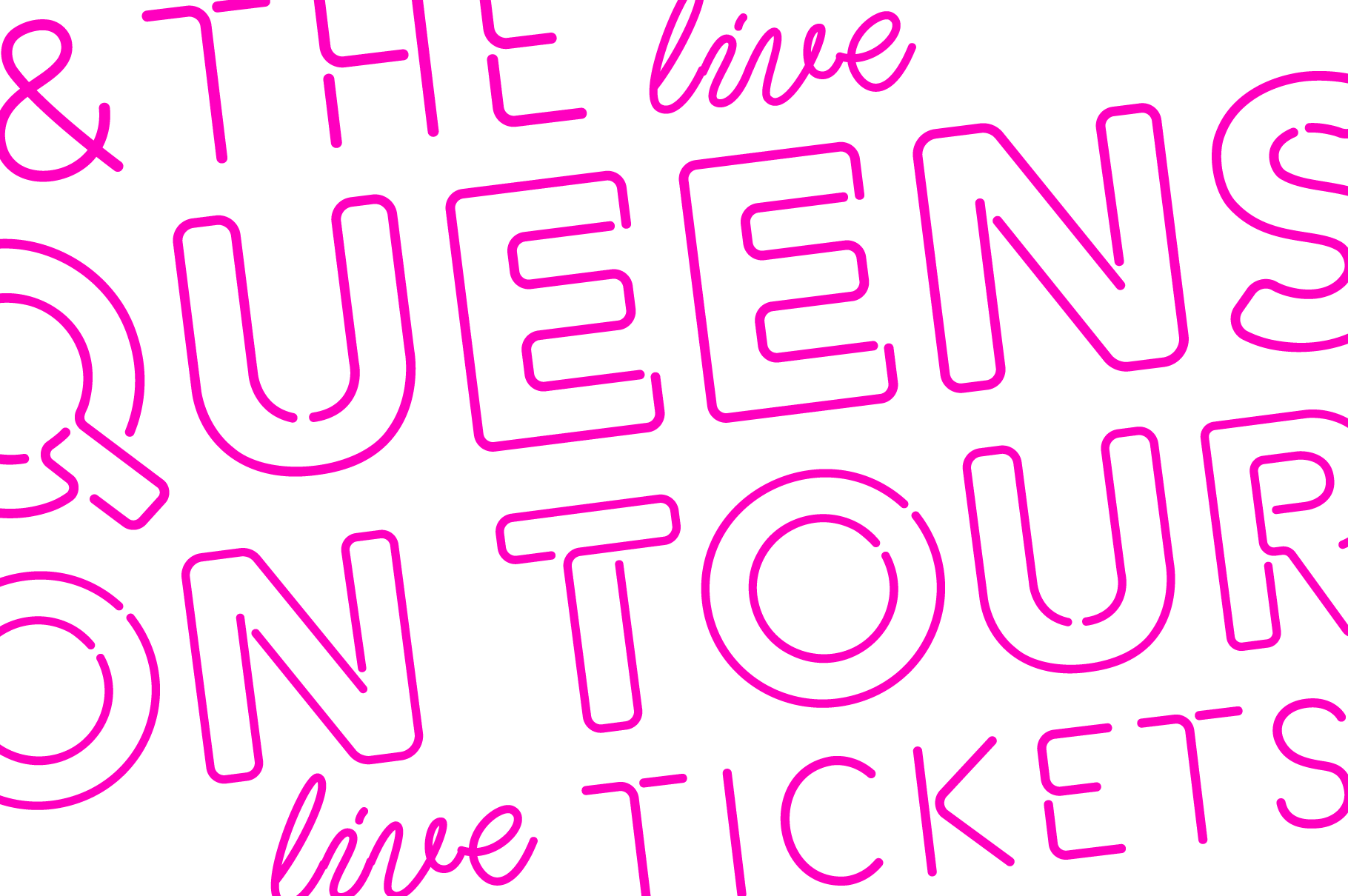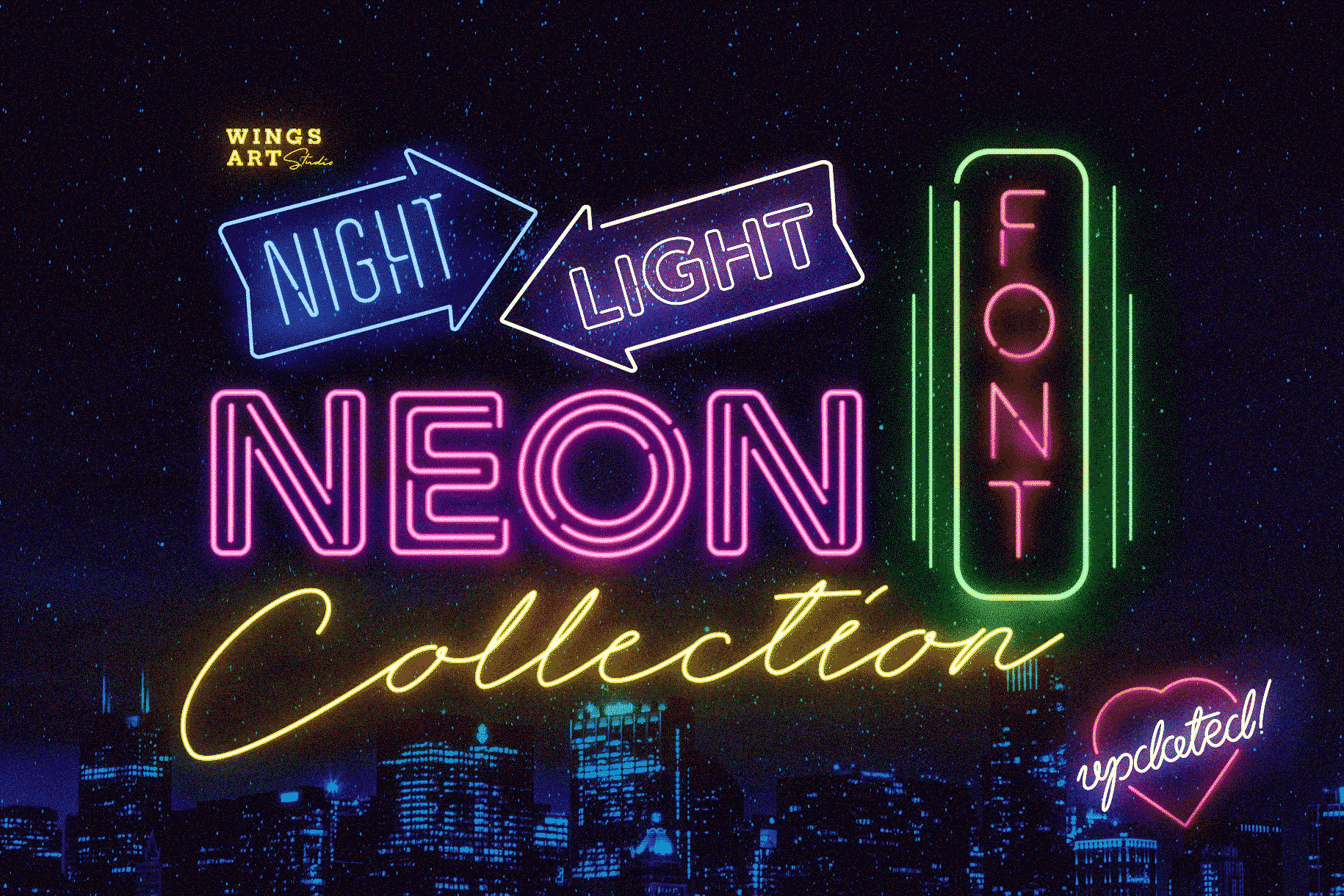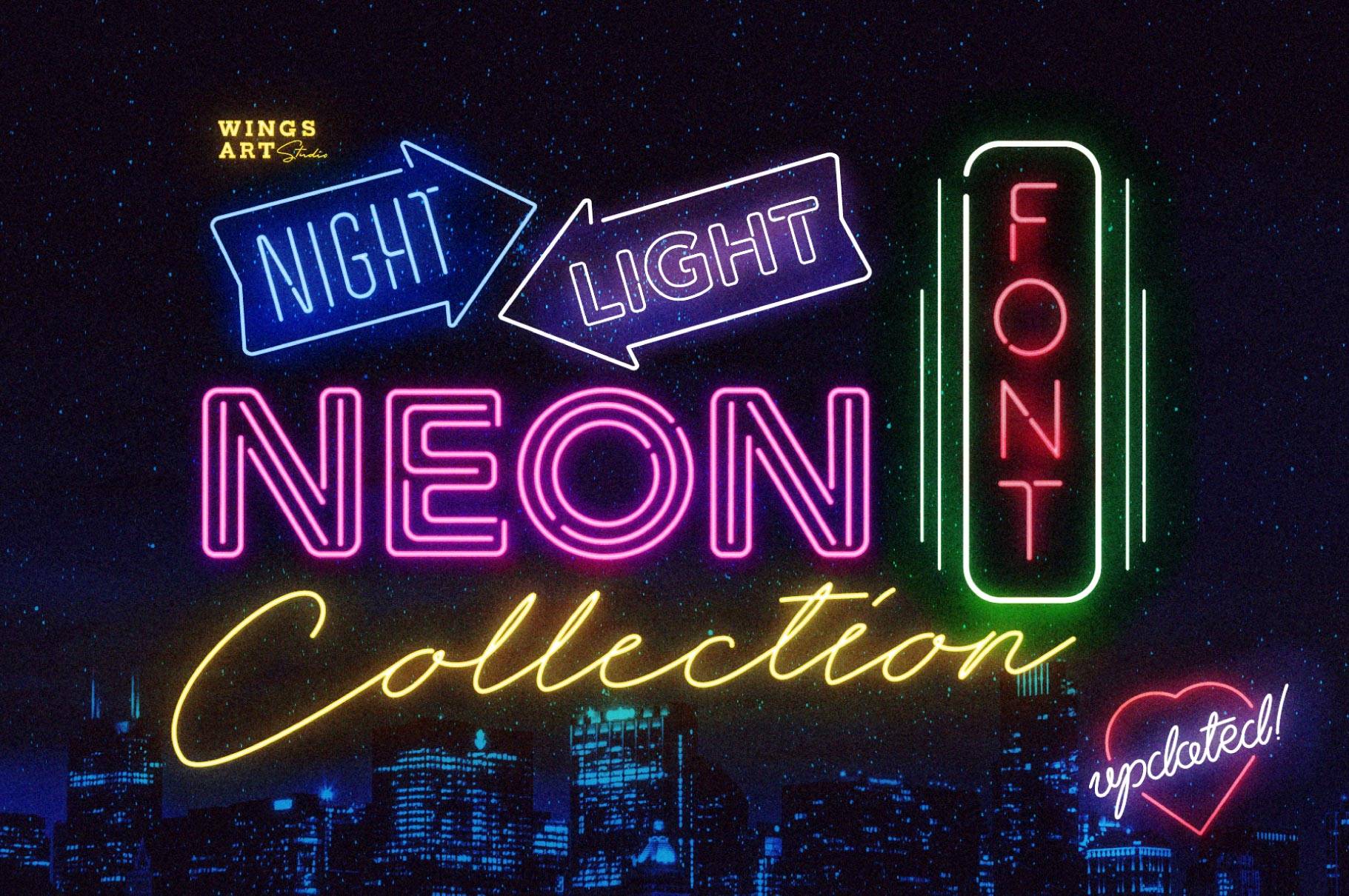
Achieve a realistic neon look with the ease of traditional fonts.
Choose from this selection of neon scripts, sans serif and outline fonts to set your text, then apply our custom graphic presets for a life giving jolt of electricity!
The appeal of neon lettering lives in it’s power to display a message in a functional, eye-catching and timelessly cool way. How many times have you stopped in the street to admire a bar sign or shop front blazing with neon colors? It’s aesthetic works equally well for a cheap Hot Dog stand or high-end fashion brand, providing a tried and tested technique for grabbing customer attention.
We’ve designed these fonts to make the power of neon accessible to all, researching real neon signs, how they are made and paying attention to their human imperfections and inherent limitations (all of which makes them great). This research has been distilled into the essential styles; Script, Outline, Inline, Square and Compressed.
These seven fonts give designers a new opportunity to take advantage of realistic neon lettering in their print and online projects, perfect for music promotion, film titles, YouTube tutorials and gig posters. Ready to be moulded to any requirement, the power of neon is in your hands!
- Outline
- Inline
- Square
- Compressed
- Script
- Script Two
- Script Three